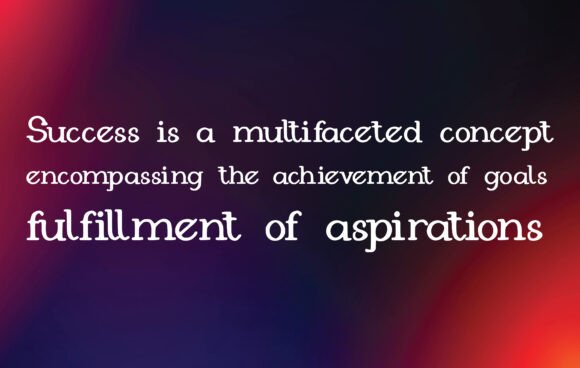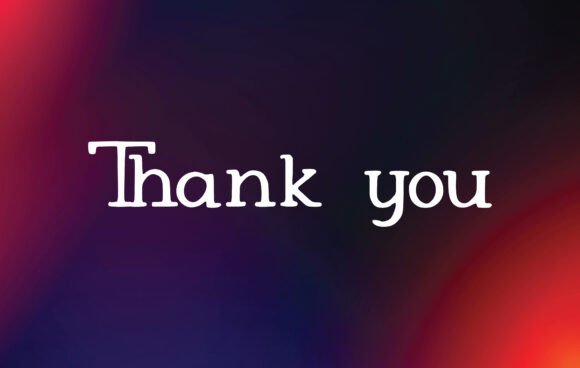
The Ultimate Guide to Alfie Font: Elevate Your Designs with this Stunning Handwritten Font
An Honest Review of Alfie Font
Alfie Font is a beautiful, handwritten font that has the potential to take your creative ideas to the highest level. Here’s what I love about it:
- ✨ Elegant and sophisticated feel, perfect for luxury brands and high-end designs
- 💫 Unique character set, including stylistic alternates and glyphs
- 🌈 Beautifully crafted to add a touch of personality to your designs
While Alfie Font is an amazing choice, it’s not perfect. Here are a few quirks to keep in mind:
- 🤔 Some characters may not work well in all contexts, so be sure to test them thoroughly
- ⚠️ Limited availability of certain OpenType features in certain software
A Practical Guide to Using Alfie Font
- Experiment with OpenType features, such as stylistic alternates and glyphs, to add personality to your text
The Story Behind Alfie Font
Alfie Font was designed by a talented type designer who wanted to create a font that would capture the essence of elegance and sophistication. Inspired by classic calligraphy and modern handwriting, Alfie Font was crafted to be both beautiful and functional.
| Font Name | Alfie Font |
| What is Alfie Font best used for? | Alfie Font is perfect for creating eye-catching logos, branding, and quotes. Its elegant and sophisticated feel makes it ideal for luxury brands, high-end designs, and formal events. |
| Is Alfie Font suitable for body text? | While Alfie Font is highly legible, it’s best used for headlines, titles, and short paragraphs. For longer body text, a more traditional font may be more suitable. |